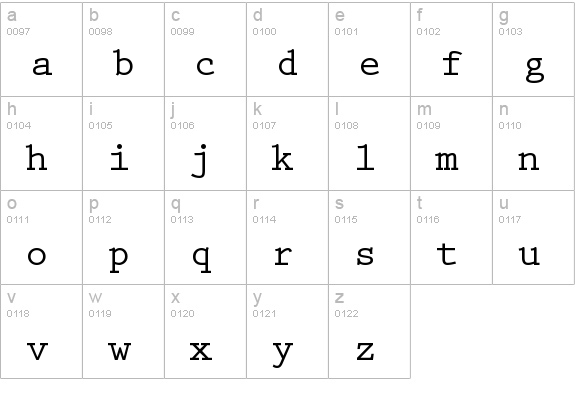
Keyboard Elite SSi Bold Font Details
Keyboard Elite SSi Bold is a strong, high-contrast variant in the Keyboard typeface family \xE2\x80\x94 well suited to headlines, attention-grabbing titles, and strong calls-to-action.
Introducing Keyboard Elite SSi Bold font, an exceptional choice for those seeking a bold and impactful typography style. With its strong and confident letterforms, this font exudes a sense of authority and professionalism that is perfect for headlines, logos, and other attention-grabbing designs. Keyboard Elite SSi Bold font is meticulously crafted to provide optimum legibility and visual impact, ensuring that your message is delivered with clarity and distinction. Its bold weight commands attention, making it ideal for conveying important information or creating a bold visual statement. What sets Keyboard Elite SSi Bold font apart is its versatility. Whether you're designing for print or digital, this font seamlessly adapts to various mediums, ensuring consistent and visually appealing results. Its modern yet timeless design makes it suitable for a wide range of projects, from branding and advertising to packaging and editorial layouts. And the best part? Keyboard Elite SSi Bold font is available for free download at FontsMarket.com. That's right, you can freely access this exceptional font and enhance your designs without breaking the bank. FontsMarket.com offers a vast selection of high-quality fonts, and Keyboard Elite SSi Bold font is just one of the many treasures waiting to be discovered. So why wait? Elevate your designs with the powerful presence of Keyboard Elite SSi Bold font. Download it for free at FontsMarket.com and unlock endless possibilities for your creative endeavors.